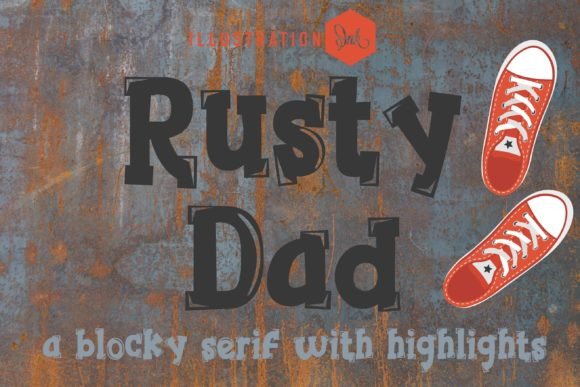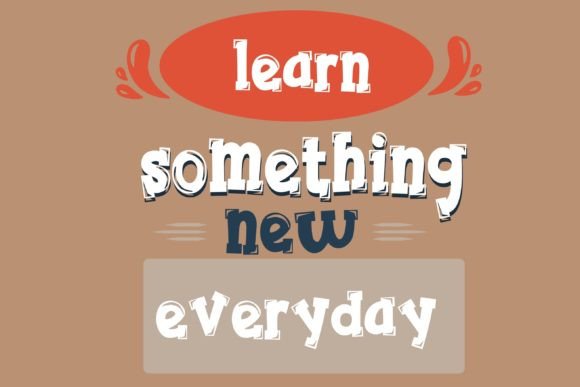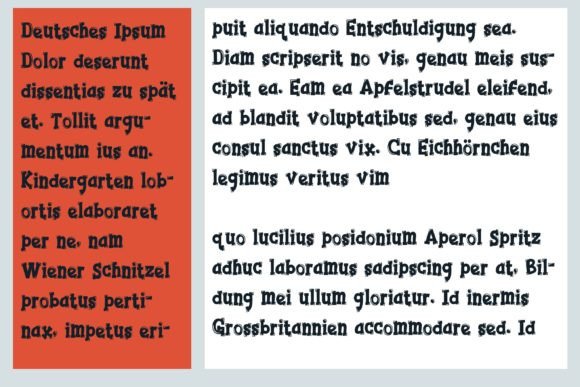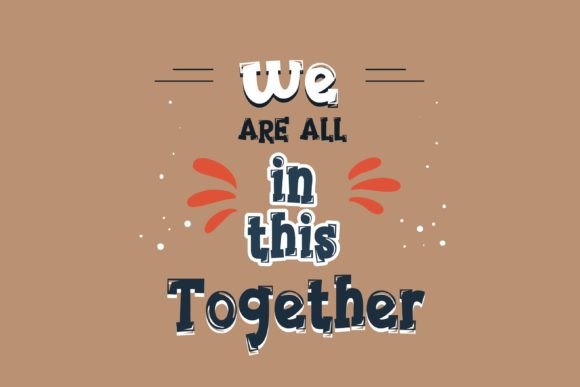
Rusty Dad Font: A Bold, Vintage Serif for Headlines & Cricut Crafts
About the Rusty Dad Font
Presenting Rusty Dad Font, a unique and stylish typeface that will make your work stand out. This highlighted, serif font feature big slab serifs throughout.
Rusty Dad: A bold, distinguished font with large, chunky serifs that stand out. Perfect for adding a touch of rugged charm to any project, this typeface commands attention and exudes a sense of vintage masculinity.
Rusty Dad excels in headlines, short text blocks, and branding applications where a strong, vintage aesthetic is desired. Its bold nature makes it ideal for posters, logos, and packaging design for products targeting a mature male demographic, or brands conveying ruggedness and reliability. Avoid using it for body text or UI elements; its large serifs and weight make it unsuitable for extended reading.
Pairing Rusty Dad effectively requires considering its robust personality. A clean sans-serif like Helvetica or a geometric sans-serif like Futura offers a strong contrast, creating visual balance. For a softer touch, a delicate script font can add a layer of refinement, while a neutral serif like Garamond can create a more traditional feel.
The overall personality is bold and distinguished, conveying a sense of vintage masculinity and inherent strength. It’s best suited for projects seeking to evoke a feeling of timelessness and robust quality.
Rusty Dad Font Usage Examples
Rusty Dad Font Example